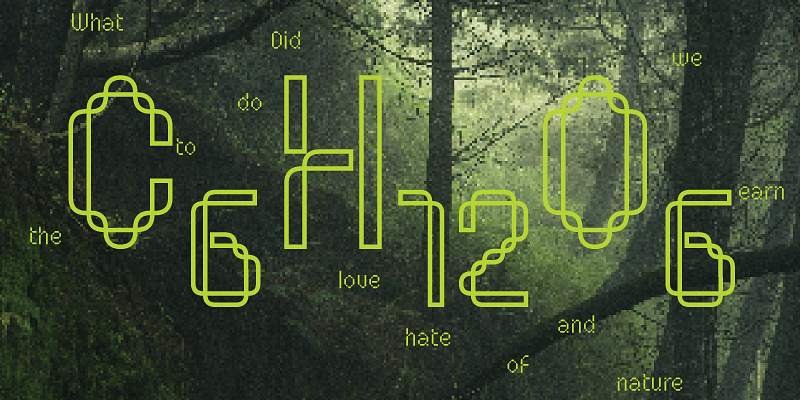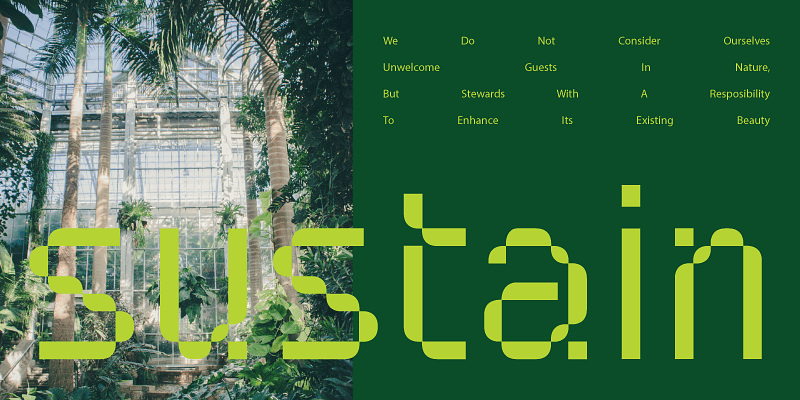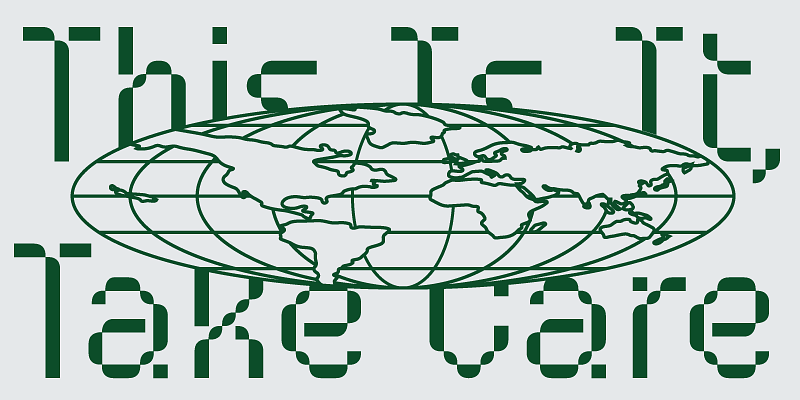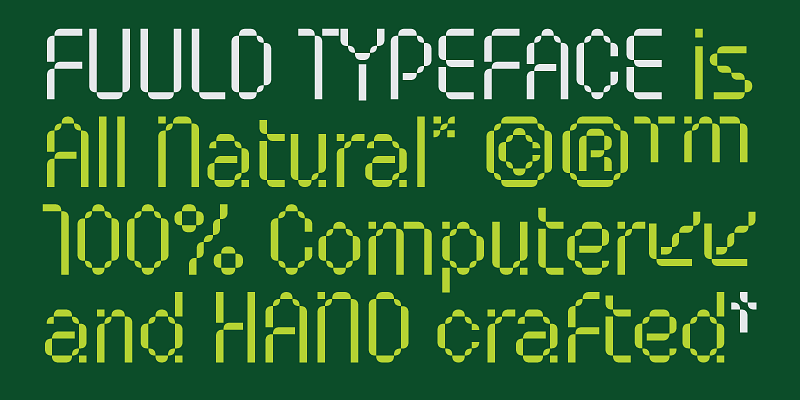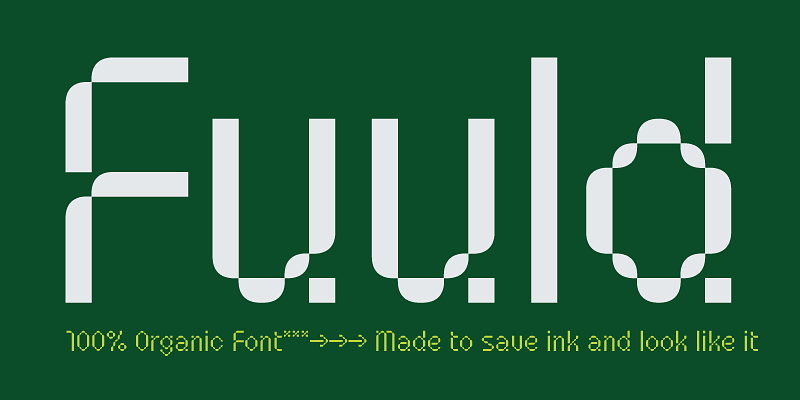
Fuuld is a bold modern display font that mixes organic and geometric, hand made, and digital production. It has a contemporary look perfect for logos, posters, branding, magazines, and more. The cool thing about this font besides how cool it looks is that it uses less ink than a regular font in its weight. This makes it perfect for any environmentally conscious print projects. Try the font with no fill and a stroke for a whole new style